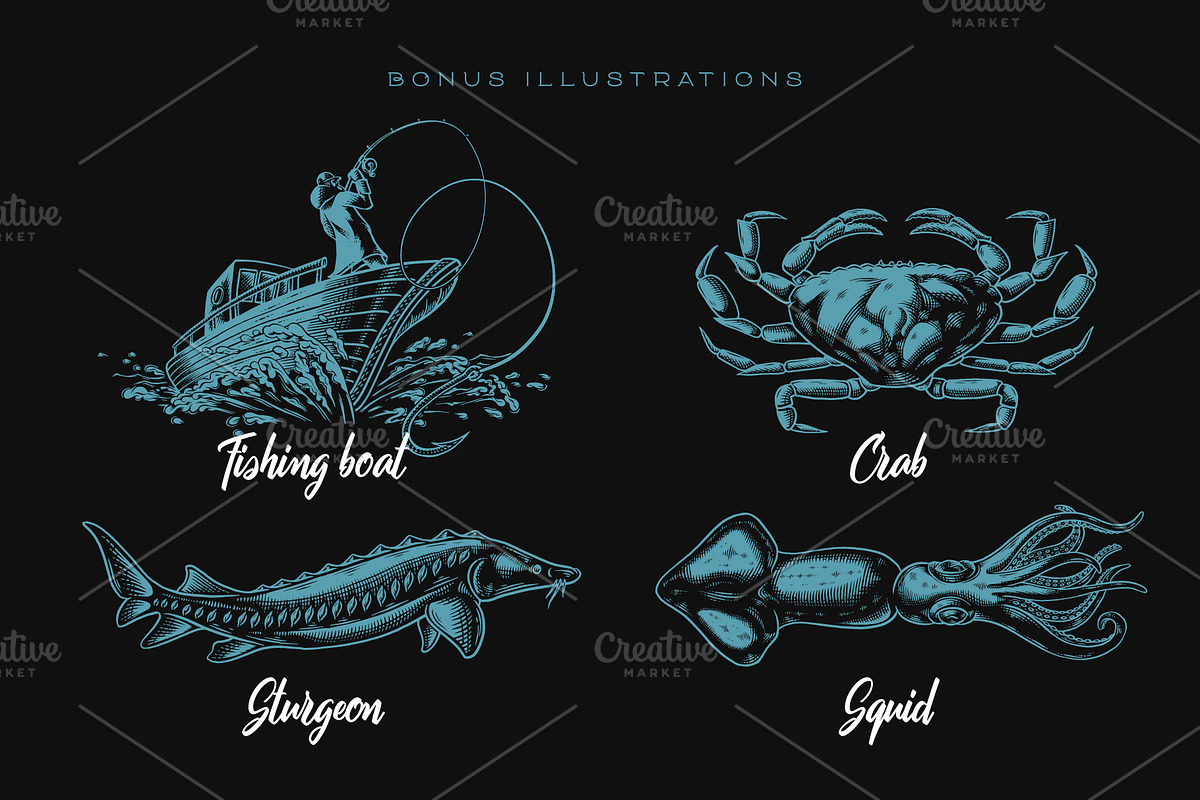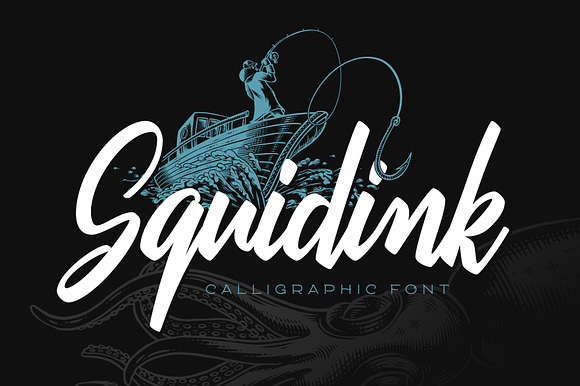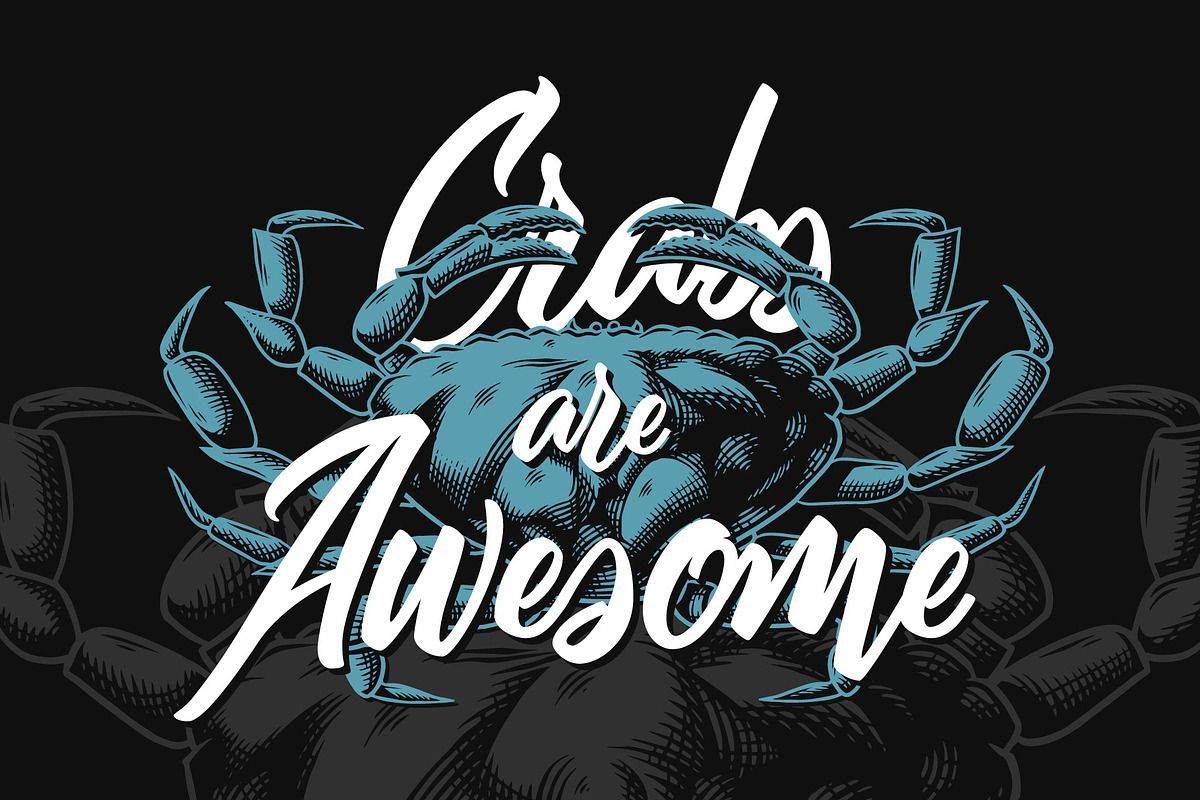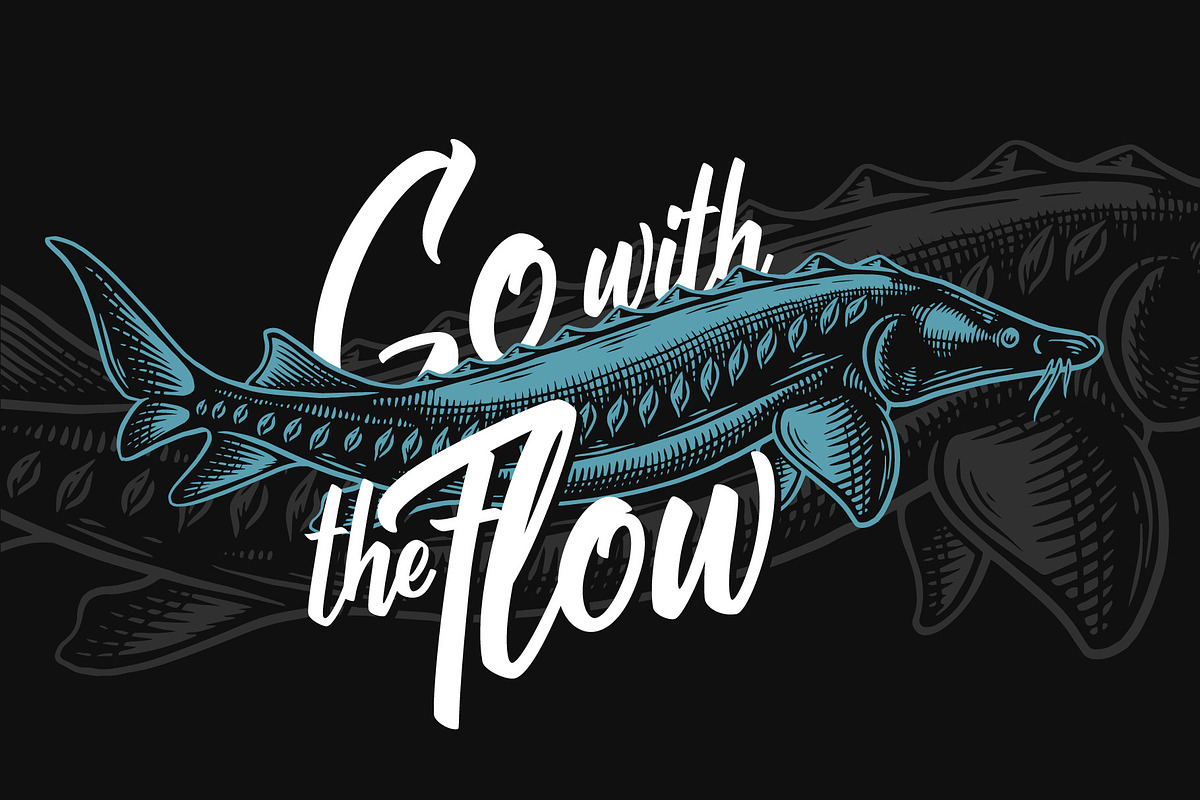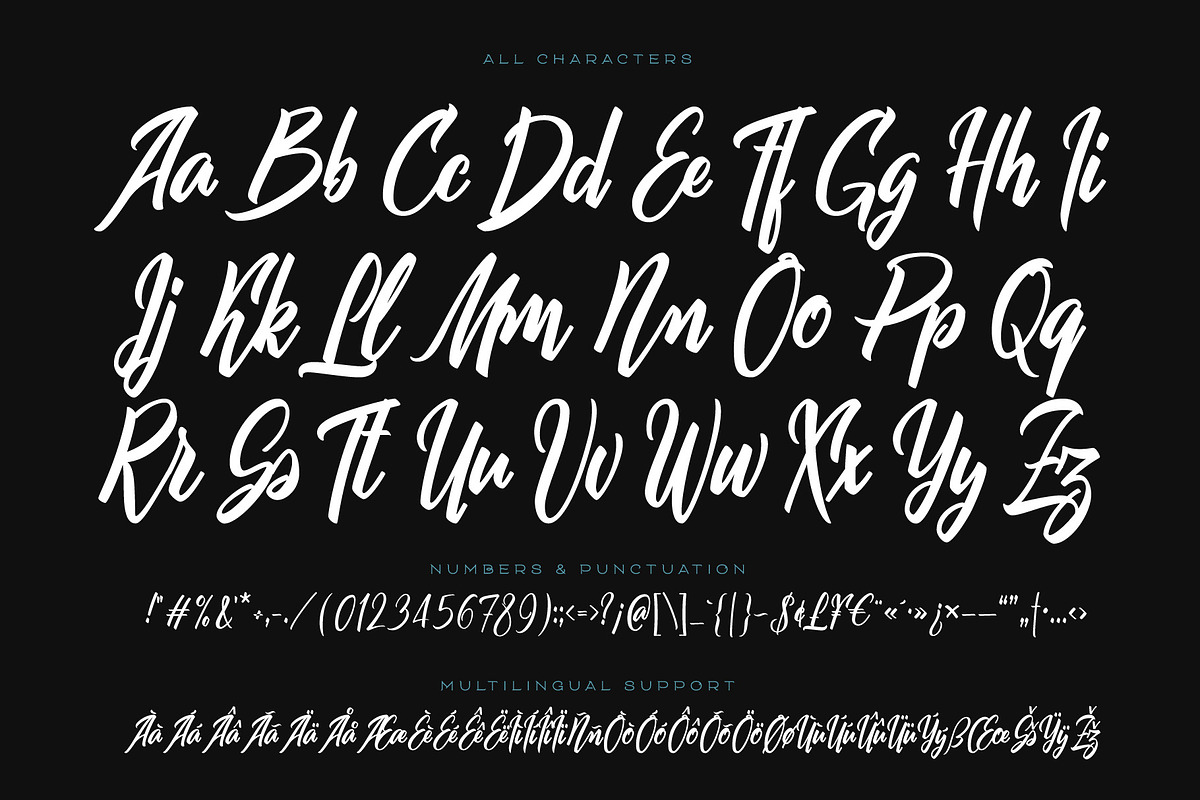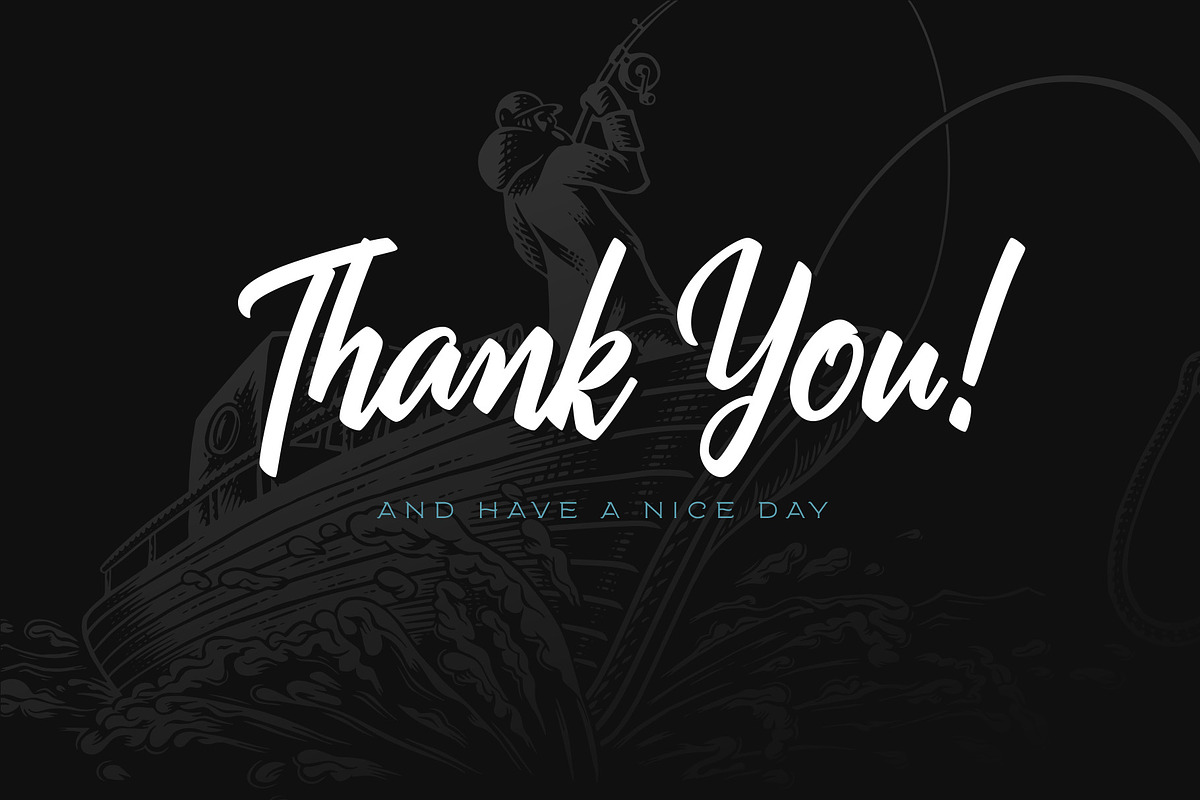
Squidink font & graphics
Hi. Introducing a calligraphic script font named Squidink. This smooth font is perfect for lettering with lot's of ligatures and multilingual support. This set contains also four marine themed handmade illustrations of sea creatures and fishing boat.